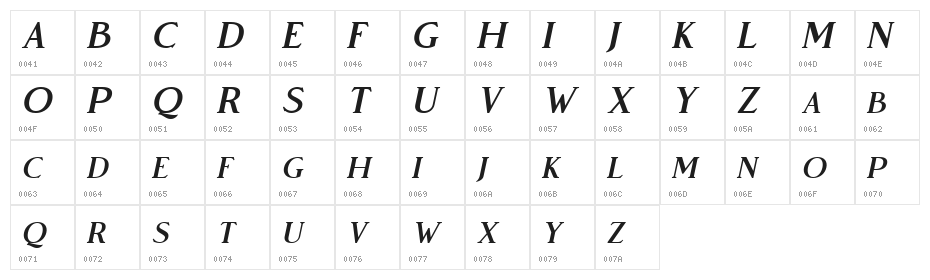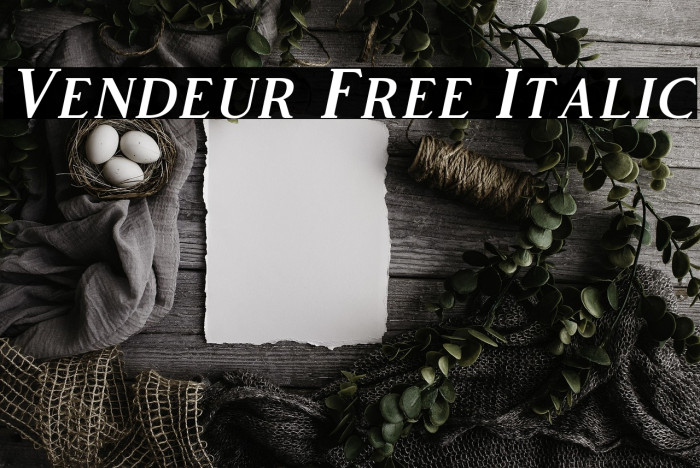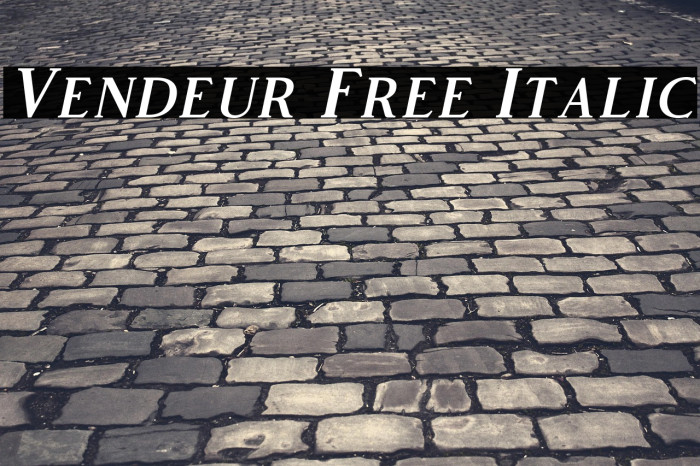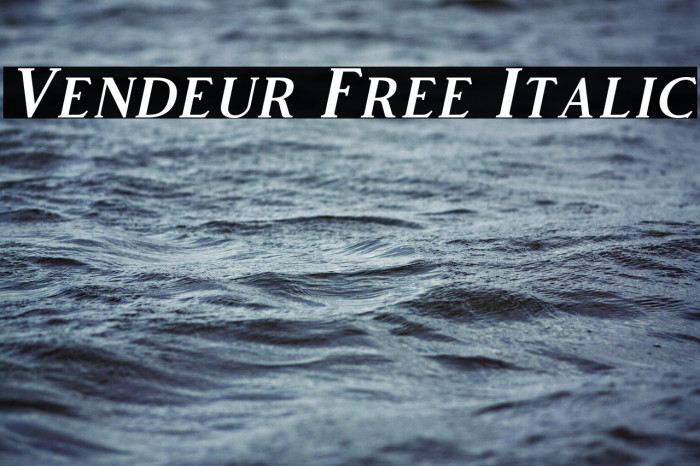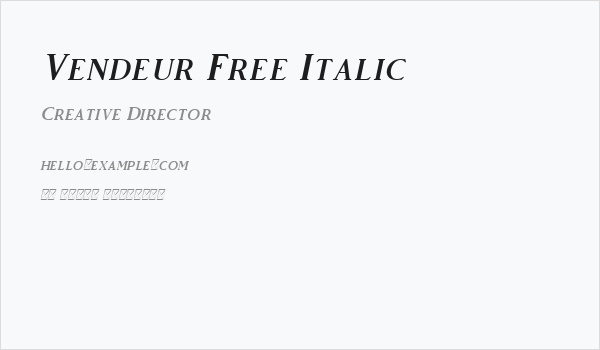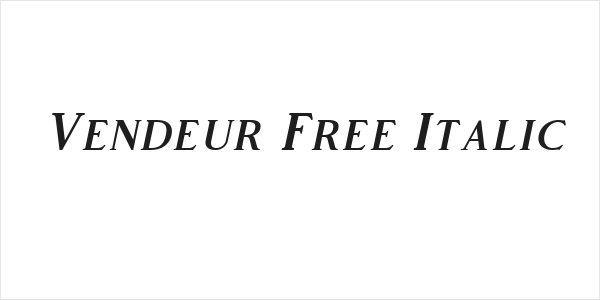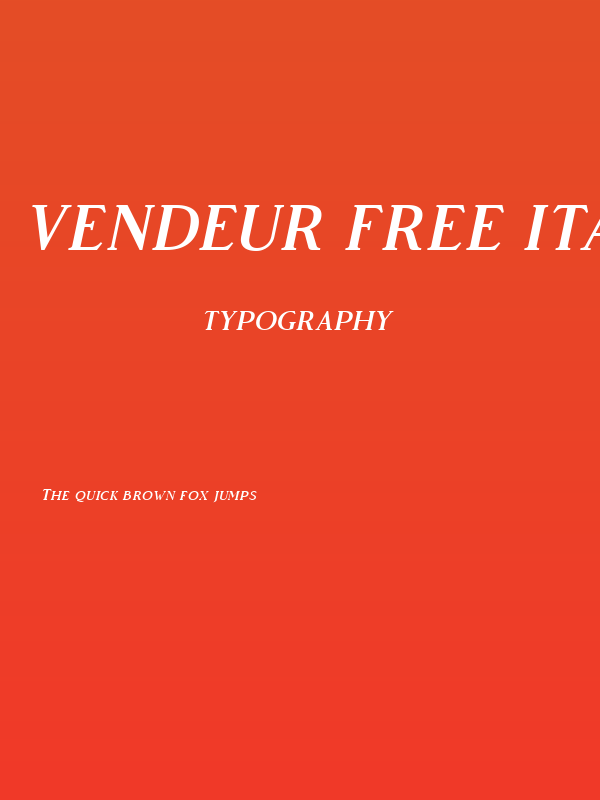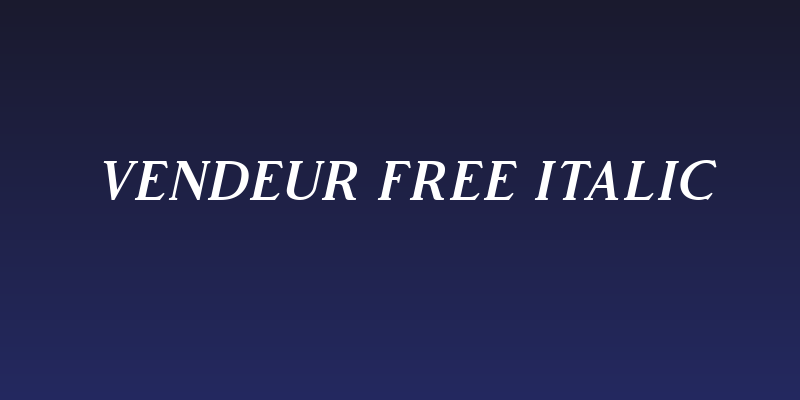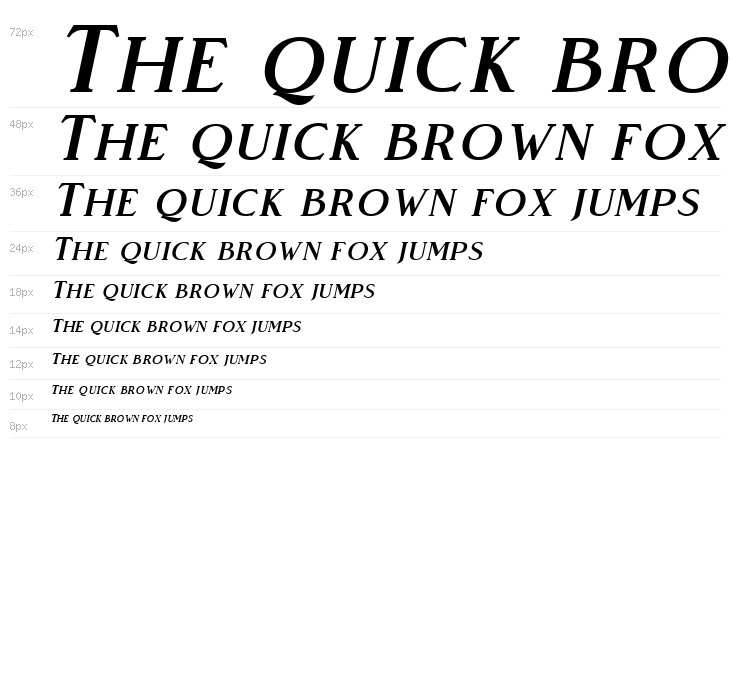
Vendeur Free Italic Font
Vendeur Free Italic Description
This font features a classic italic style with a slight slant, giving it an elegant and sophisticated appearance. The characters are well-defined with smooth curves and sharp serifs, providing a sense of formality and tradition. The uppercase letters are bold and commanding, while the lowercase letters maintain a consistent flow, enhancing readability. The numerals are clear and distinct, matching the overall aesthetic of the font. Special characters are designed to complement the letterforms, ensuring a cohesive look across all text elements.
| Proposed Projects | Ideal for formal invitations, elegant branding, book covers, and editorial design. |